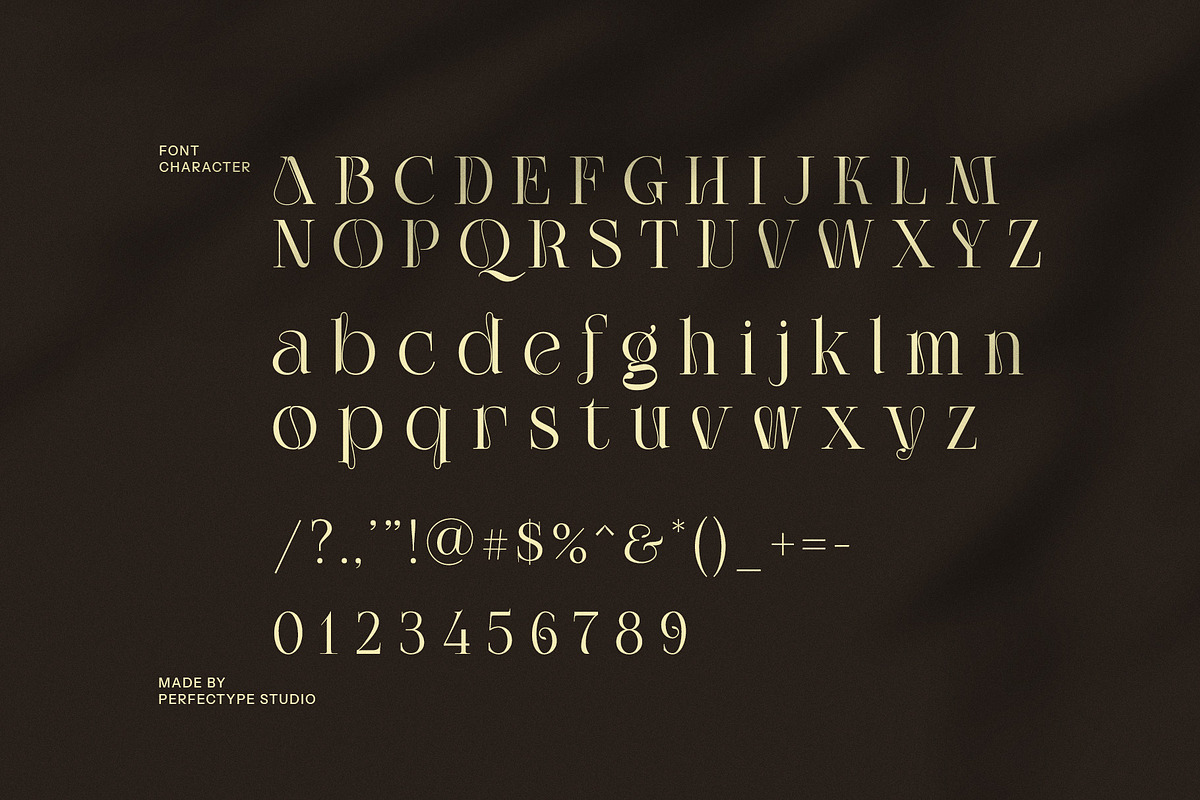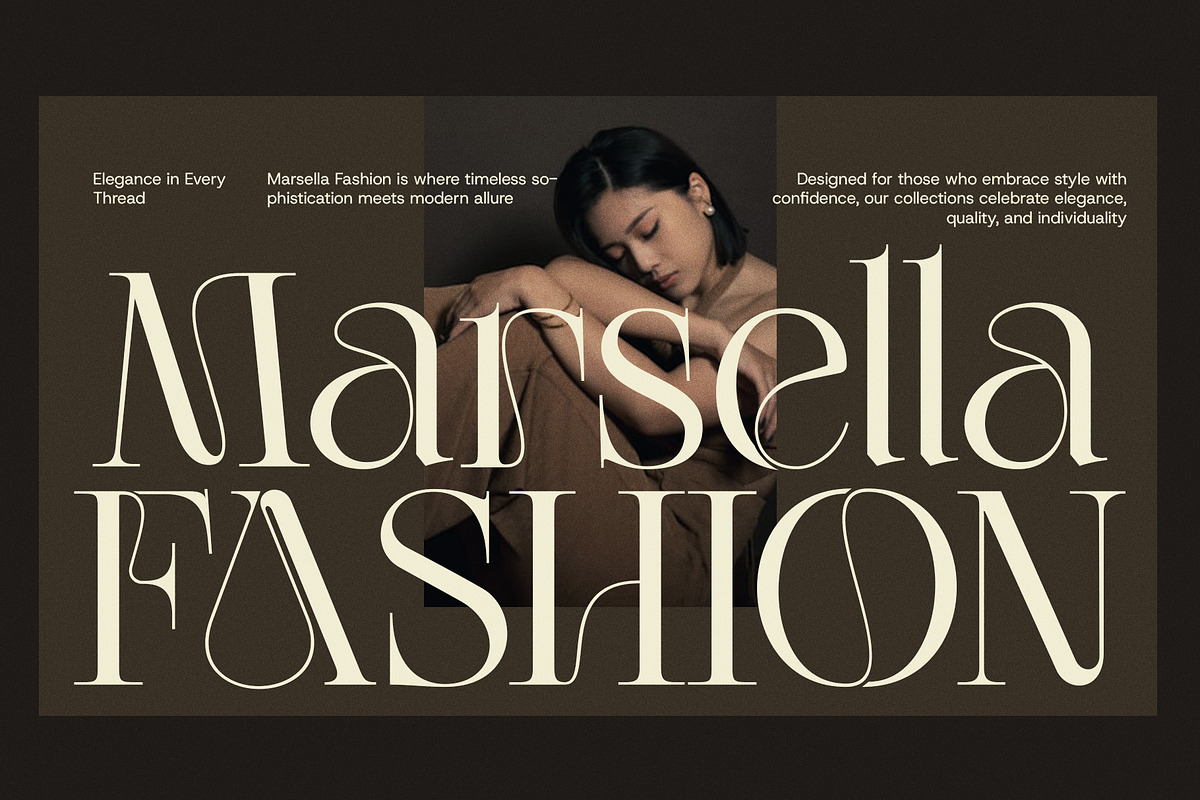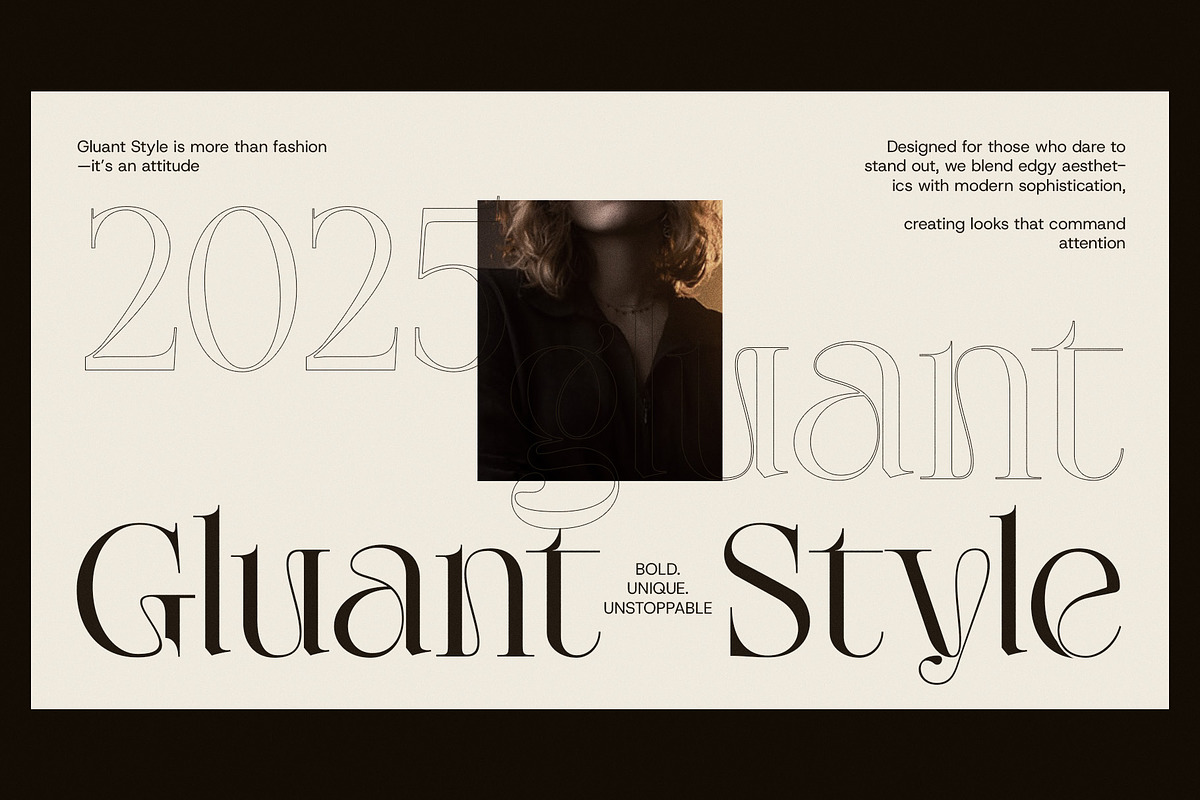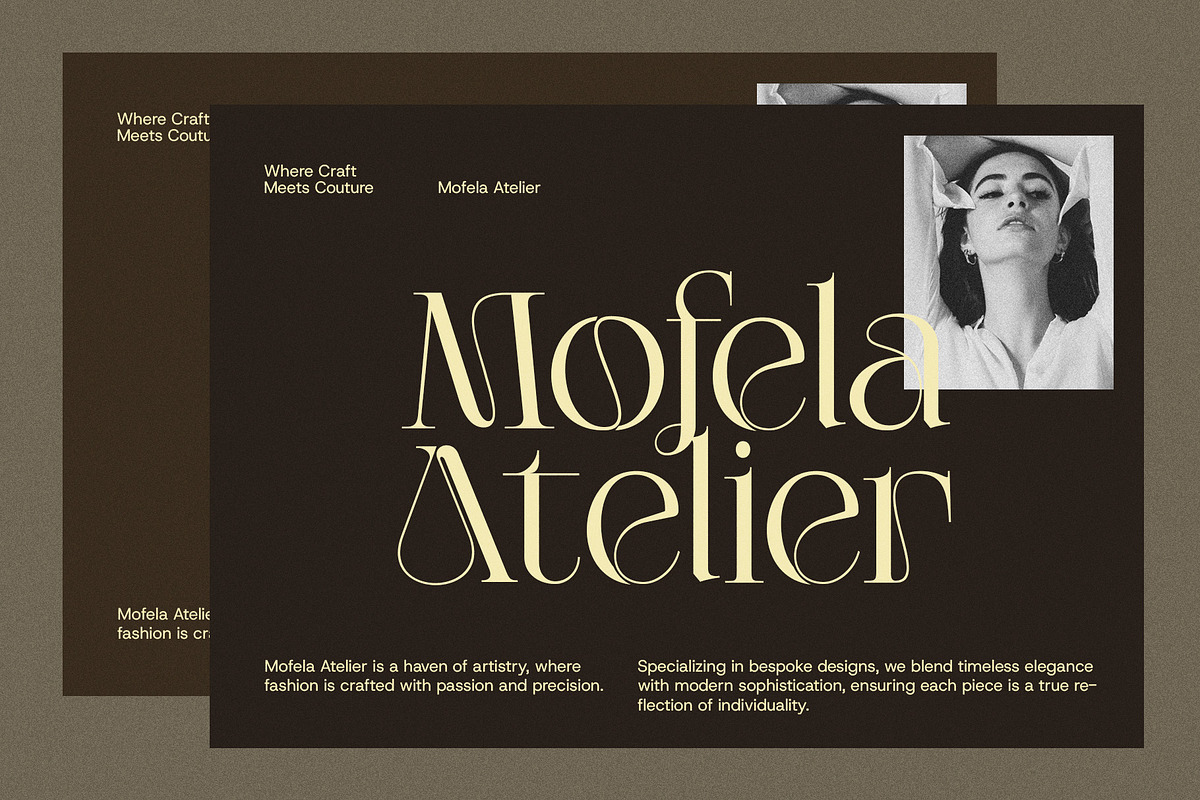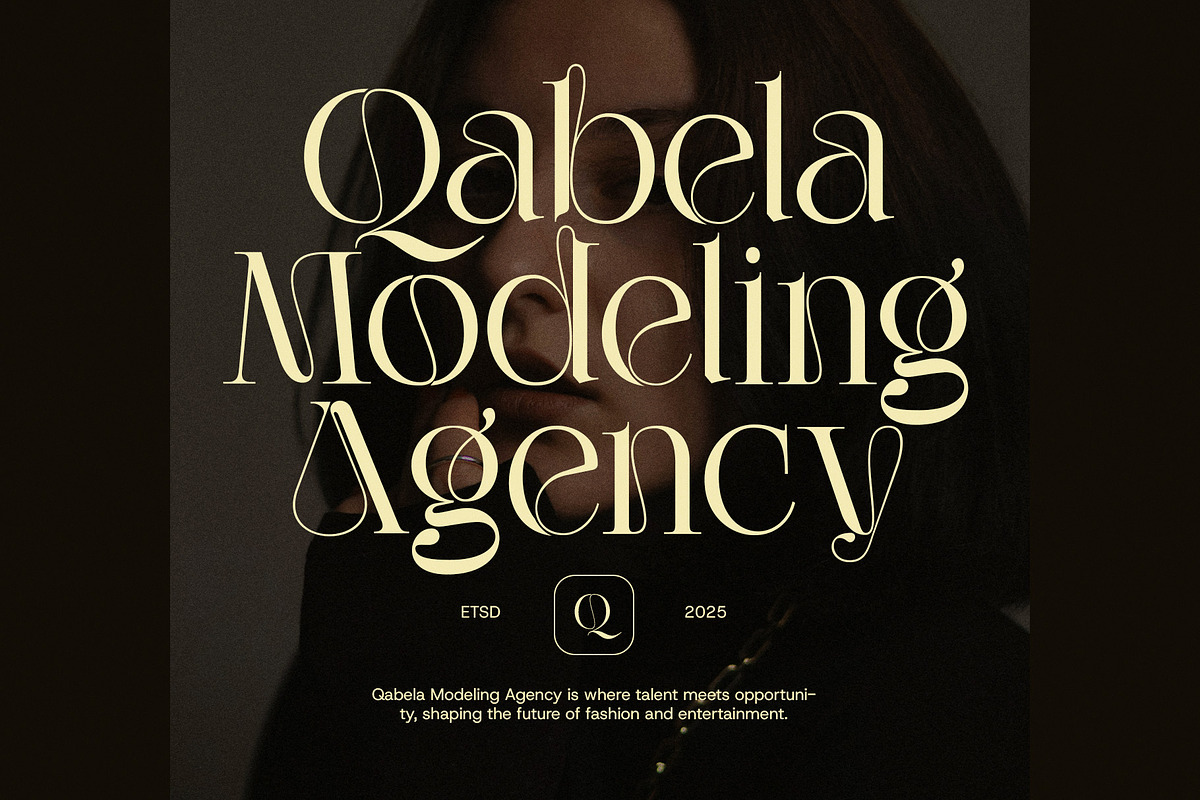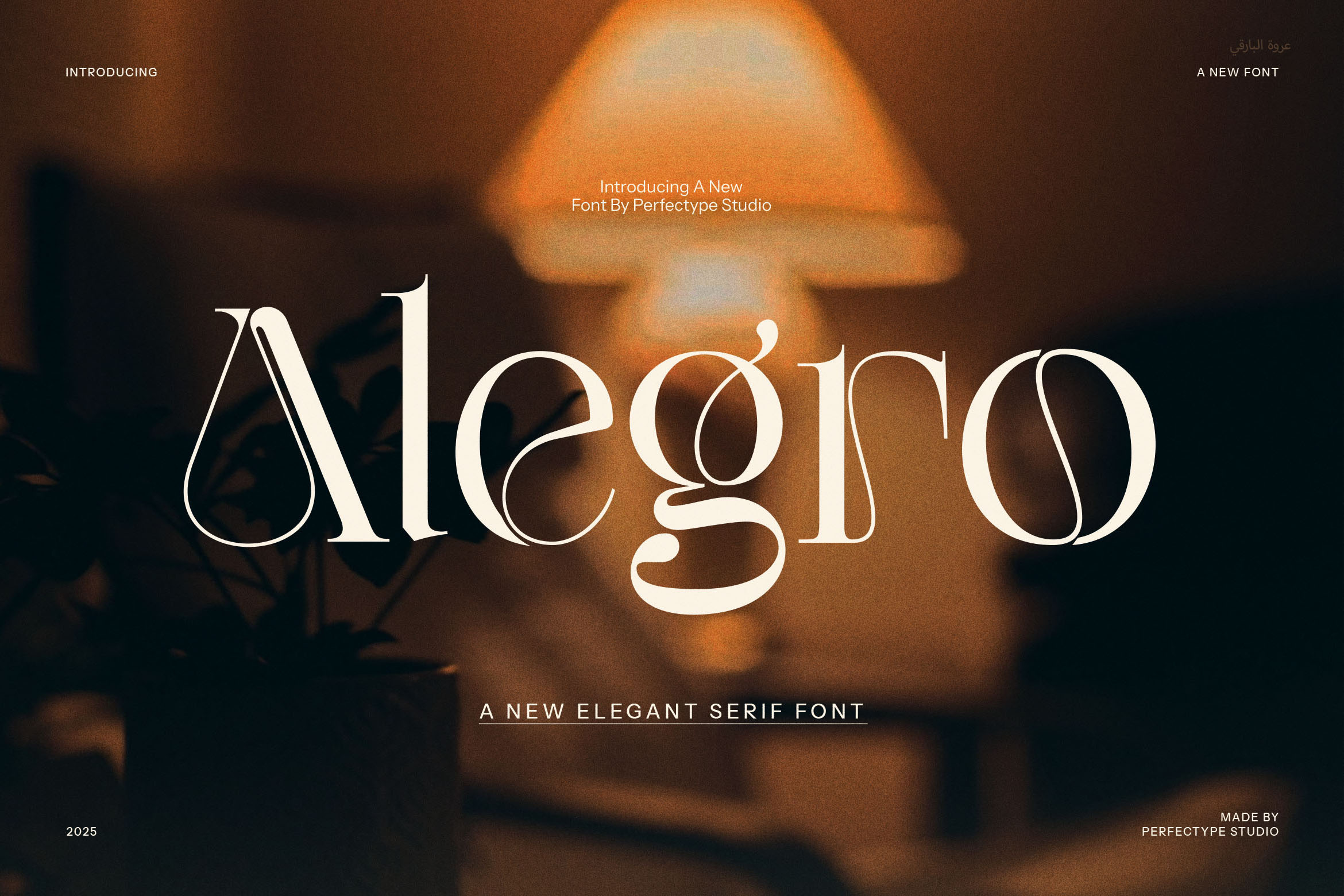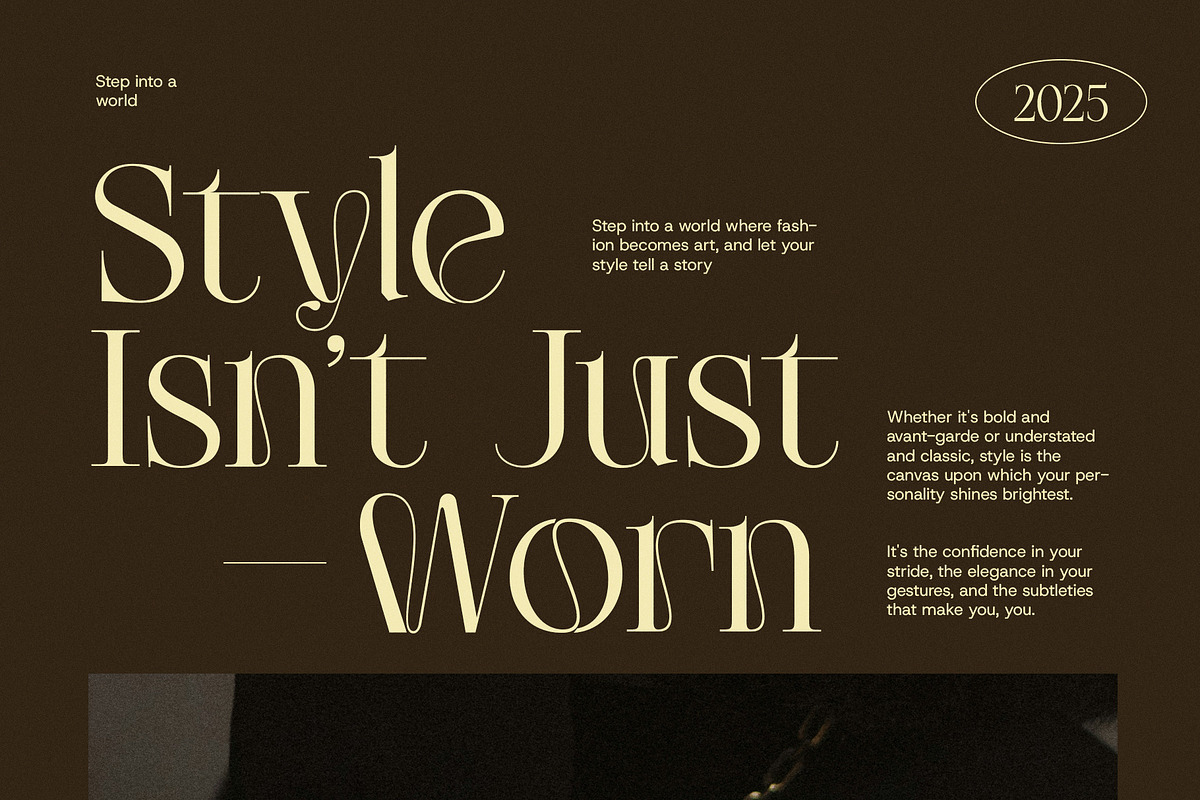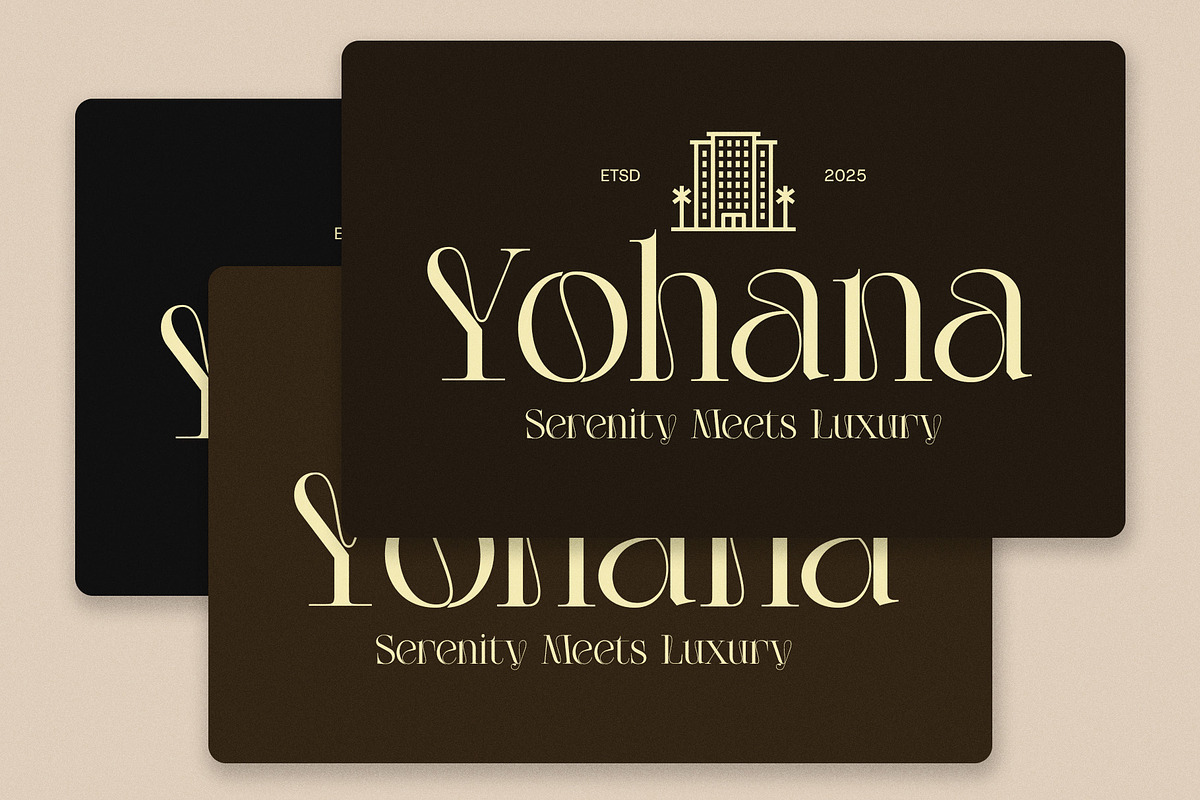
Alegro Unique Serif Font
Alegro Unique Serif Font is a modern and sophisticated typeface that combines classic elegance with contemporary flair. Designed to make a bold statement, this font features meticulously crafted ligatures and alternate characters, giving your designs a distinctive and high-end look. Its unique features offer an exquisite touch to any creative project, from logos to brand identities, ensuring that each letterform stands out with its individual charm.
Perfect for a wide array of design applications, Alegro brings a sense of luxury to logos, branding, websites, and advertisements. Its refined serif structure enhances readability while maintaining a stylish and professional presence. Whether you're working on a boutique logo, a food product label, or an elegant magazine layout, Alegro effortlessly adapts to the demands of modern design with its clean lines and sophisticated detailing.
What truly sets Alegro apart is its versatility. This font is equally suited for print and digital projects, adding a refined quality to both large headlines and smaller body text. Its timeless design makes it an ideal choice for brands looking to project a sense of elegance and exclusivity, while its creative alternates give you the flexibility to customize the look to match your vision.
Whether you're crafting an advertisement, a website, or a product packaging, Alegro Unique Serif Font ensures your designs are both memorable and timeless, elevating any project with style, personality, and finesse.